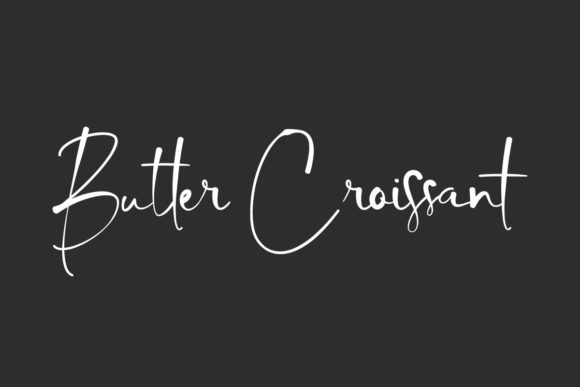
Feast your eyes upon Butter Croissant, a captivating script font that combines sophistication and whimsy in an enchanting fusion. This masterpiece, crafted by the skilled hands of vintype, embodies the essence of elegance with its sweeping strokes and delicate flourishes. Its name, Butter Croissant, evokes images of a crisp, golden pastry, promising a sensory experience that is both visually and textually delectable.
Butter Croissant is not merely a font; it's an artistic expression that transforms words into visual poetry. Its meticulously crafted characters dance across the page, creating a symphony of shapes and forms that captivates the eye and ignites the imagination. Whether you're a seasoned designer or a creative enthusiast, Butter Croissant will elevate your projects to new heights of visual appeal.
Step into a world of endless possibilities with Butter Croissant. Its versatility knows no bounds as it seamlessly adapts to a myriad of creative endeavors. From elegant wedding invitations to eye-catching social media posts, from stylish logos to captivating posters, Butter Croissant effortlessly weaves its magic, leaving a trail of visual enchantment wherever it goes.
Unleash your creativity and let your imagination soar as you explore the boundless applications of Butter Croissant. Design brochures that exude professionalism, business cards that leave a lasting impression, logos that command attention, and product packaging that demands to be noticed. Create screen prints that pop with vibrancy, signage that captivates the eyes of passersby, website designs that engage and inspire.
With Butter Croissant as your creative companion, the possibilities are endless. Let your designs blossom into breathtaking realities, leaving an indelible mark on the hearts and minds of your audience. Experience the transformative power of Butter Croissant and unlock a world of visual wonders.